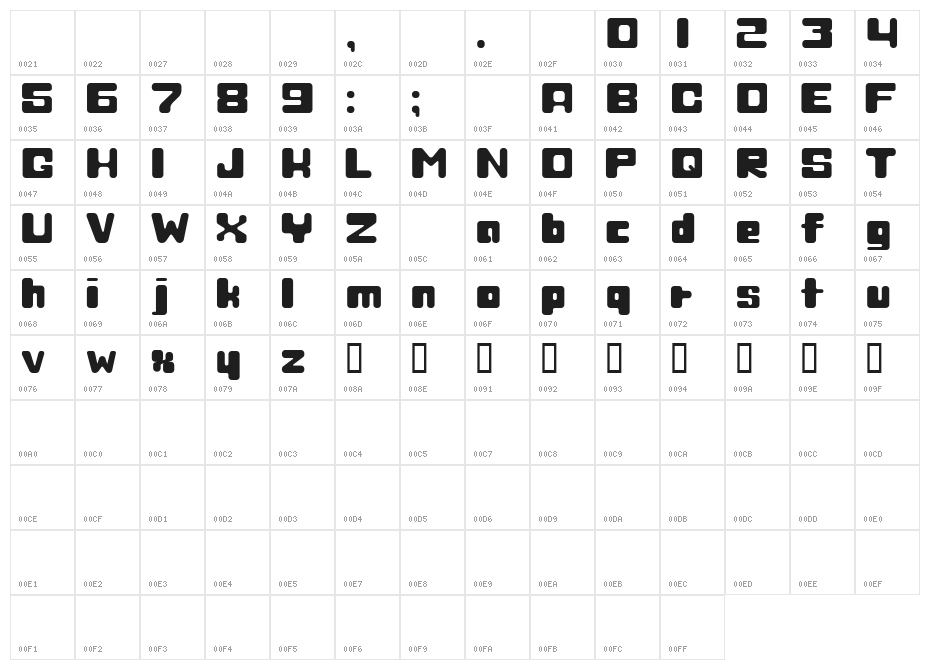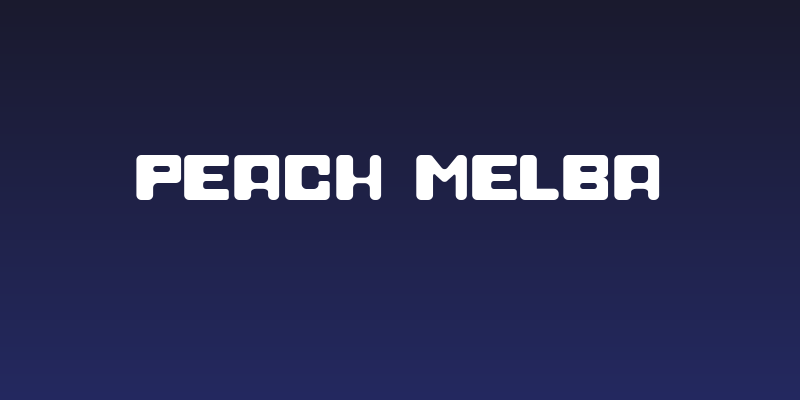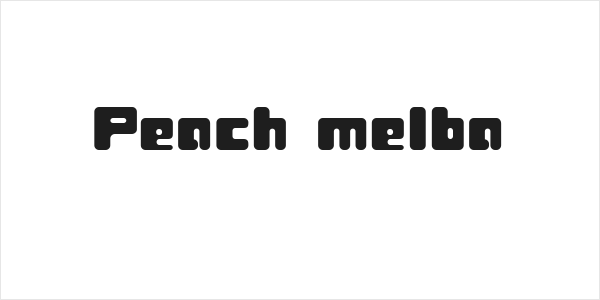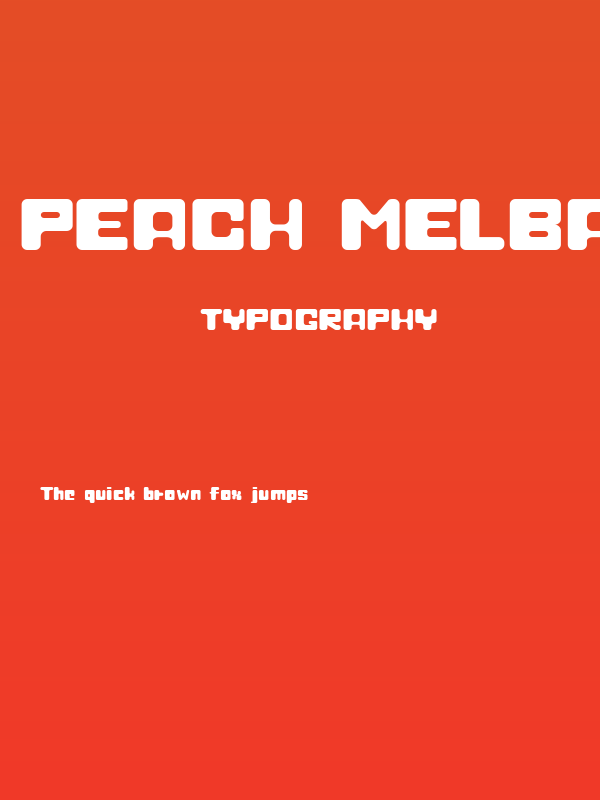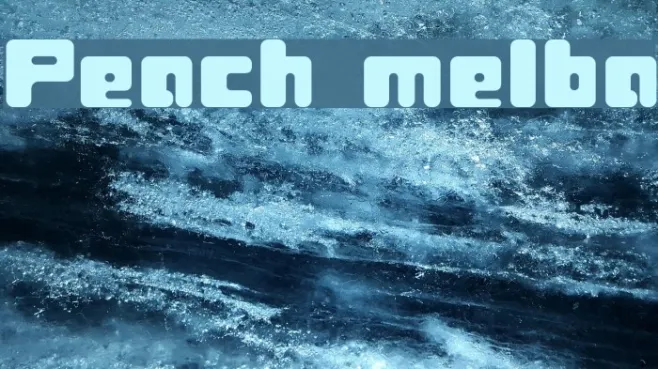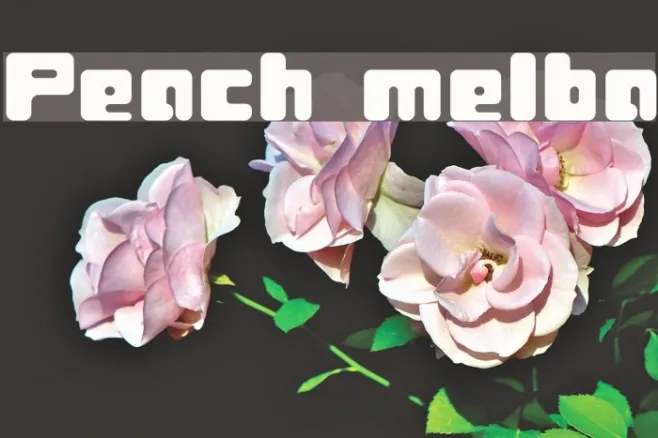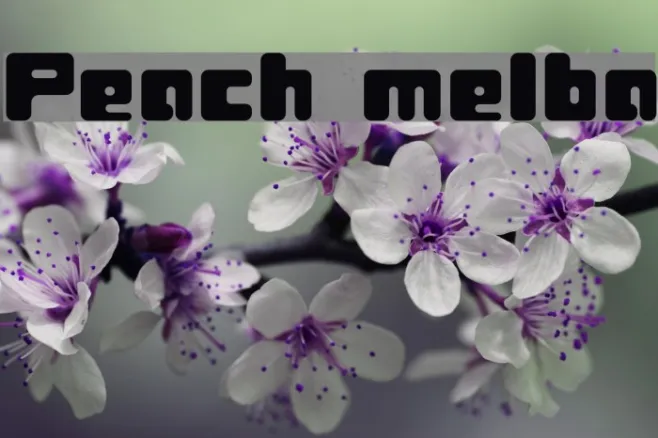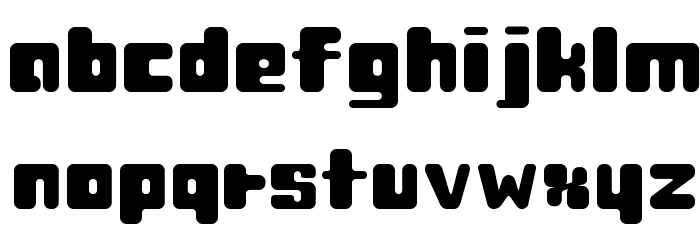
Peach melba Font
Peach melba Description
This font features a bold and playful design with rounded edges and a strong presence. The characters are uniformly thick, giving it a robust and friendly appearance. The uppercase and lowercase letters maintain a consistent style, with a slightly condensed form that enhances readability. The numbers are equally bold and rounded, matching the overall aesthetic. The special characters are designed to complement the letters and numbers, maintaining the same playful and bold style. This font is ideal for projects that require a fun and approachable look, such as children's books, playful branding, or eye-catching headlines.
| Overall Style | Playful, Modern |
| Proposed Projects | Ideal for children's books, playful branding, and eye-catching headlines. |